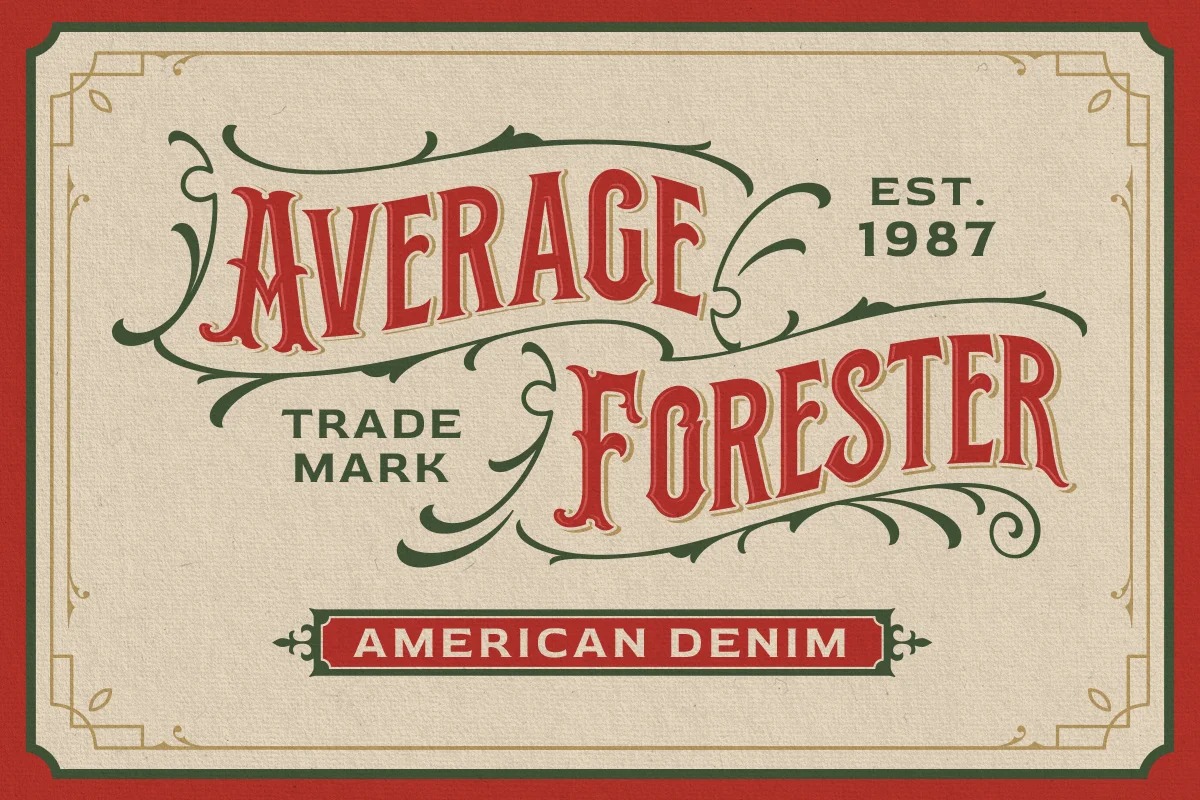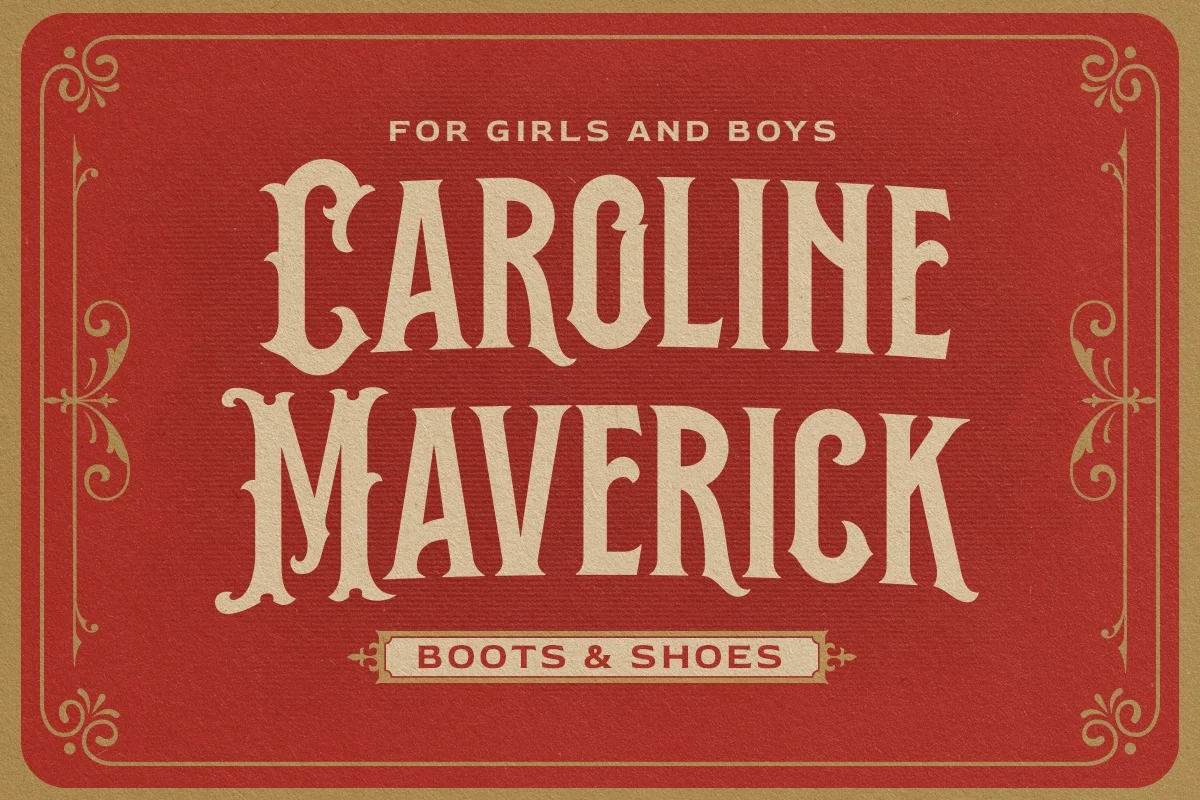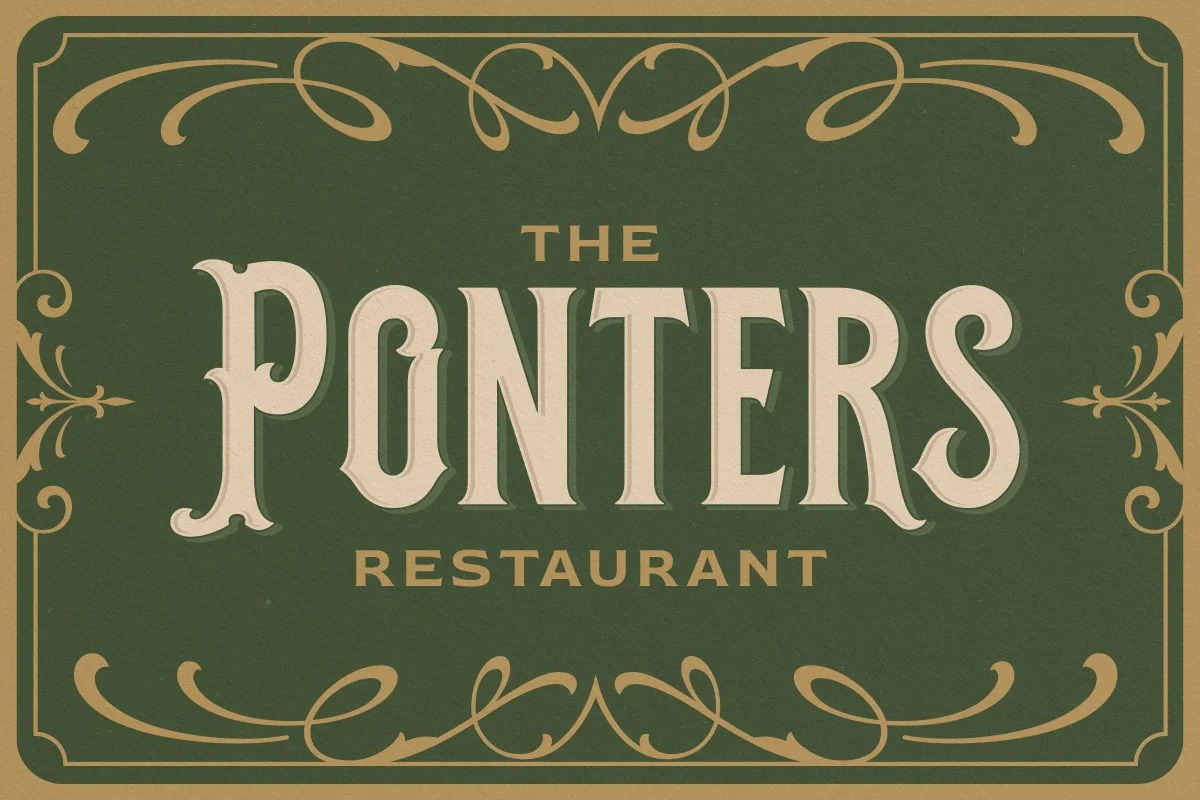
The Morshine Font
Morshine Display Font
This is a stylish display font inspired from Medieval Era. It has beautiful, fresh, elegant, natural and stylish glyphs. While this font has a victorian touch, it still looks bold and solid. Very suitable for for headline, logotype, apparel, invitation, branding, packaging, advertising etc with old school / vintage theme. This typeface looks great combined with decorative ornaments. It comes in uppercase, lowercase, punctuations, symbols & numerals, stylistic set alternate, ligatures, etc also support multilingual and already PUA encoded.